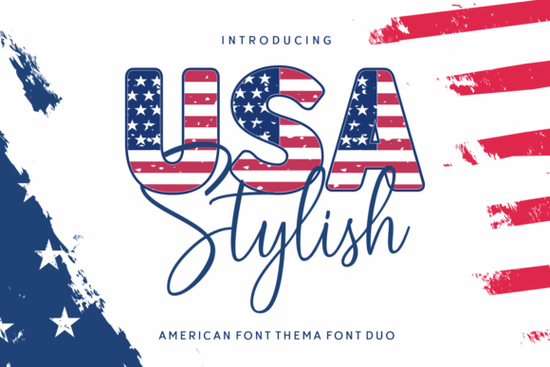
Designers, crafters, and small business owners often look for fonts that not only catch the eye but also tell a story. The {title} is one such typeface that brings a sense of pride and celebration to any project. With its unique blend of boldness and patriotism, this font is ideal for anyone looking to add a touch of American spirit to their work. Whether you're creating merchandise for a holiday event or designing a promotional piece, the USA Stylish font offers a fresh and meaningful way to express your creativity.
The USA Stylish font draws inspiration from the iconic red, white, and blue of the American flag. Its design balances simplicity with symbolism, making it versatile for both digital and print use. This font works well in logos, banners, and social media graphics, especially during events like Independence Day or Fourth of July celebrations. It’s also great for branding projects that aim to evoke a sense of national identity or community pride.
Why Choose USA Stylish Font?
If you're looking for a font that stands out while maintaining readability, the USA Stylish font is an excellent choice. It combines elements of traditional typography with modern flair, making it suitable for a wide range of applications. From greeting cards to t-shirt designs, this font adds a visual impact that resonates with audiences who appreciate patriotic themes.
One of the key strengths of this font is its ability to convey emotion without being overly complex. The clean lines and structured layout make it easy to read, even at smaller sizes. This makes it ideal for use in headings, titles, and short phrases where clarity is essential. At the same time, the font’s distinctive style ensures it doesn’t get lost in a sea of generic typefaces.
How to Use USA Stylish Font Effectively
To get the most out of the USA Stylish font, consider pairing it with complementary typefaces. For example, using a sans-serif font for body text can create a nice contrast while keeping the overall design balanced. This approach is especially useful for print-on-demand sellers who want to offer visually appealing products without overwhelming the viewer.
Another tip is to experiment with color schemes that reflect the American flag. Using red, white, and blue in your design can enhance the patriotic feel of the font and make your work more engaging. This is particularly effective for seasonal campaigns or limited-edition products that celebrate national holidays.
Final Thoughts on USA Stylish Font
The USA Stylish font is more than just a typeface it’s a tool for expressing identity, pride, and creativity. Whether you’re a designer working on a special project or a small business owner looking to stand out, this font can help you make a lasting impression. Its versatility and strong visual presence make it a valuable addition to any design toolkit.